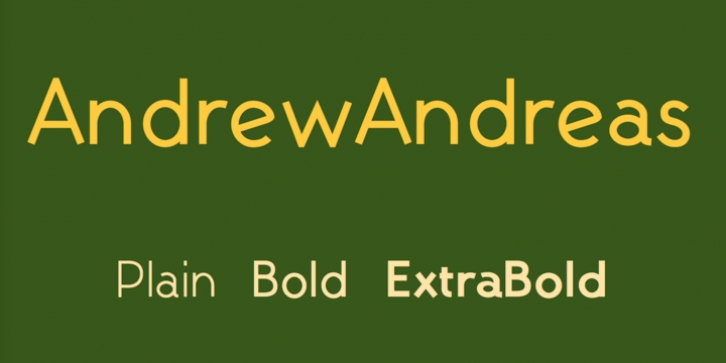
AndrewAndreas was designed by Robert Schenk and published by Ingrimayne Type. AndrewAndreas contains 3 styles and family package options.
AndrewAndreas is a plain, geometric sans-serif typeface in three weights.